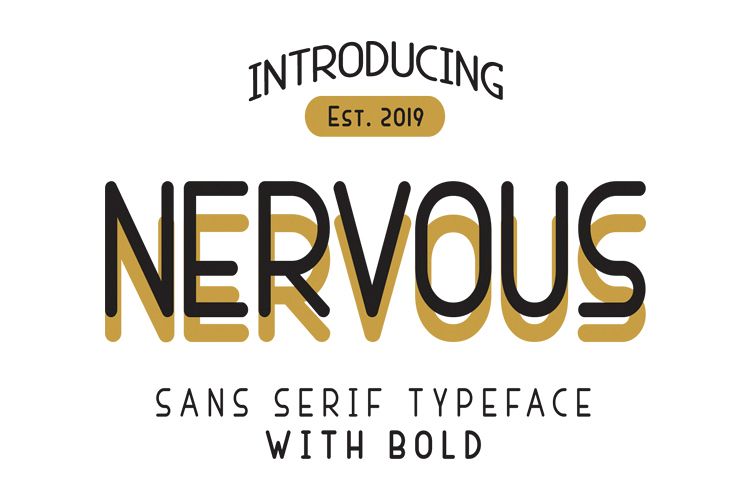
Nervous Sans Serif
Nervous sans serif is the latest font from me with the previous
comparison. With different styles and fonts this is very simple and
suitable to be used for various needs, such as logos, magazine covers,
quotes, letters, brands, merchandise brands, clothing, products and
more.